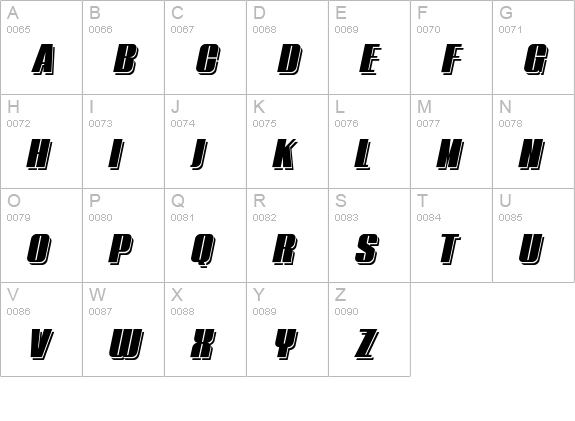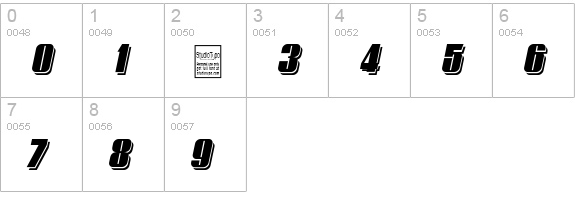
Typoline Demi Shadow Italic is a sub-bold, structured, italic variant in the Typoline typeface family \xE2\x80\x94 well suited to sub-headlines and emphasised passages.
Typoline Demi Shadow Italic is a charismatic and contemporary font that adds a touch of elegance and sophistication to any design project. This font boasts a unique combination of boldness and subtlety, making it perfect for headlines, titles, logos, and branding materials. With its exquisite shadow effect and stylish italics, Typoline Demi Shadow Italic effortlessly captures attention and creates a visually appealing focal point. The slanted letterforms create a sense of movement and dynamism, giving your designs a modern and trendy edge. One of the most enticing aspects of Typoline Demi Shadow Italic is that it is freely available to download at FontsMarket.com. This means that you can add this remarkable font to your collection without spending a penny. Whether you are a professional designer or a creative enthusiast, this free font offers you the opportunity to enhance your projects with a touch of class and sophistication. The versatility of Typoline Demi Shadow Italic allows it to be used in a wide range of design applications. From print materials such as posters, brochures, and packaging, to digital designs like websites, social media graphics, and presentations, this font seamlessly adapts to any medium. The attention to detail in Typoline Demi Shadow Italic is truly remarkable. Each letterform has been meticulously crafted to ensure optimal legibility and aesthetic appeal. The delicate balance between the boldness of the shadow effect and the elegance of the italics creates a visually captivating result. Whether you are looking to make a bold statement or add a subtle touch of sophistication, Typoline Demi Shadow Italic is the perfect choice. Download this extraordinary font for free at FontsMarket.com and elevate your designs to new heights.